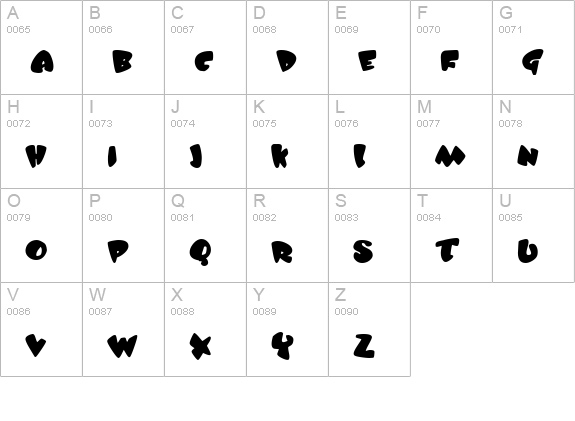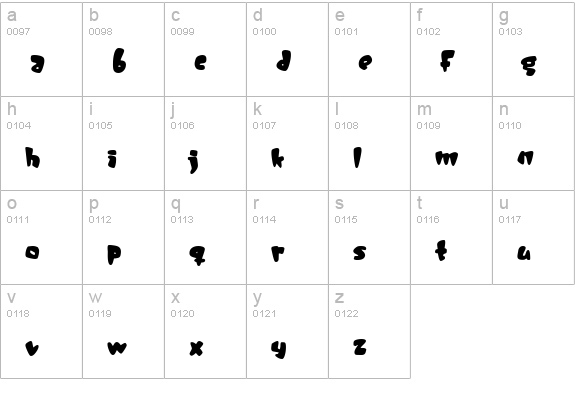
JellyBelly Font Details
Introducing JellyBelly font - a playful and whimsical typeface that will add a touch of fun to any project. With its rounded edges and bubbly appearance, JellyBelly is perfect for creating eye-catching designs for children's books, party invitations, and more. This delightful font exudes a sense of joy and creativity, making it ideal for projects that require a lighthearted touch. The best part? JellyBelly is available for free download at FontsMarket.com. Simply visit the website to access this charming font and start incorporating it into your designs today. Let JellyBelly bring a smile to your audience and infuse your projects with a sense of playfulness and imagination. Download it now and unleash your creativity with this delightful typeface!